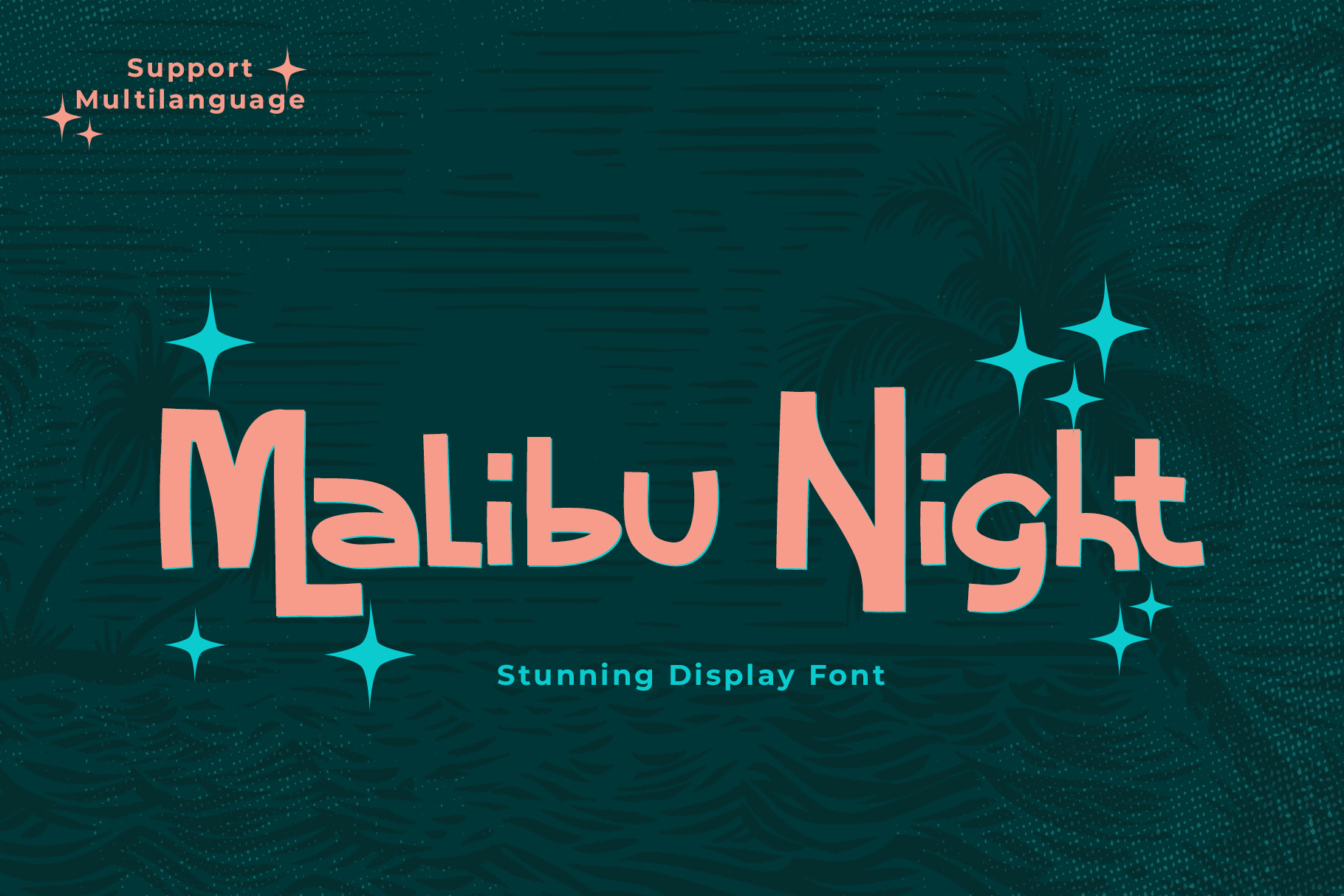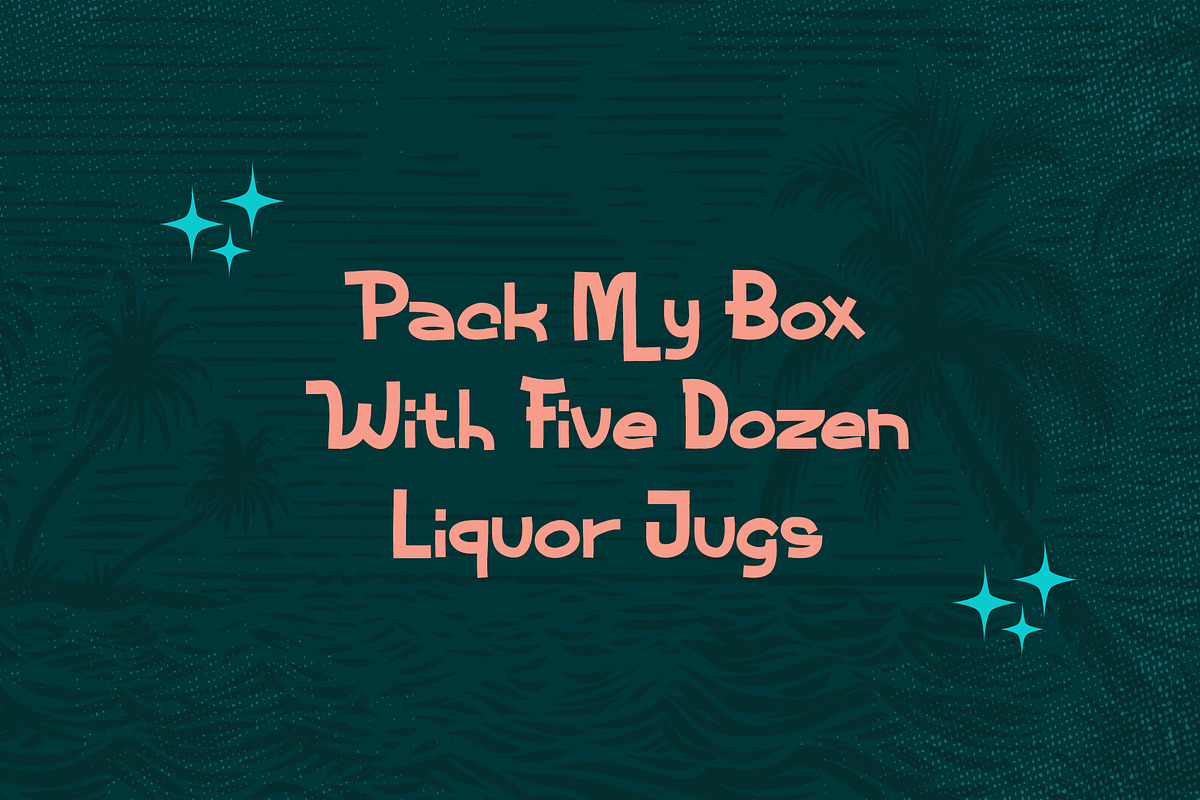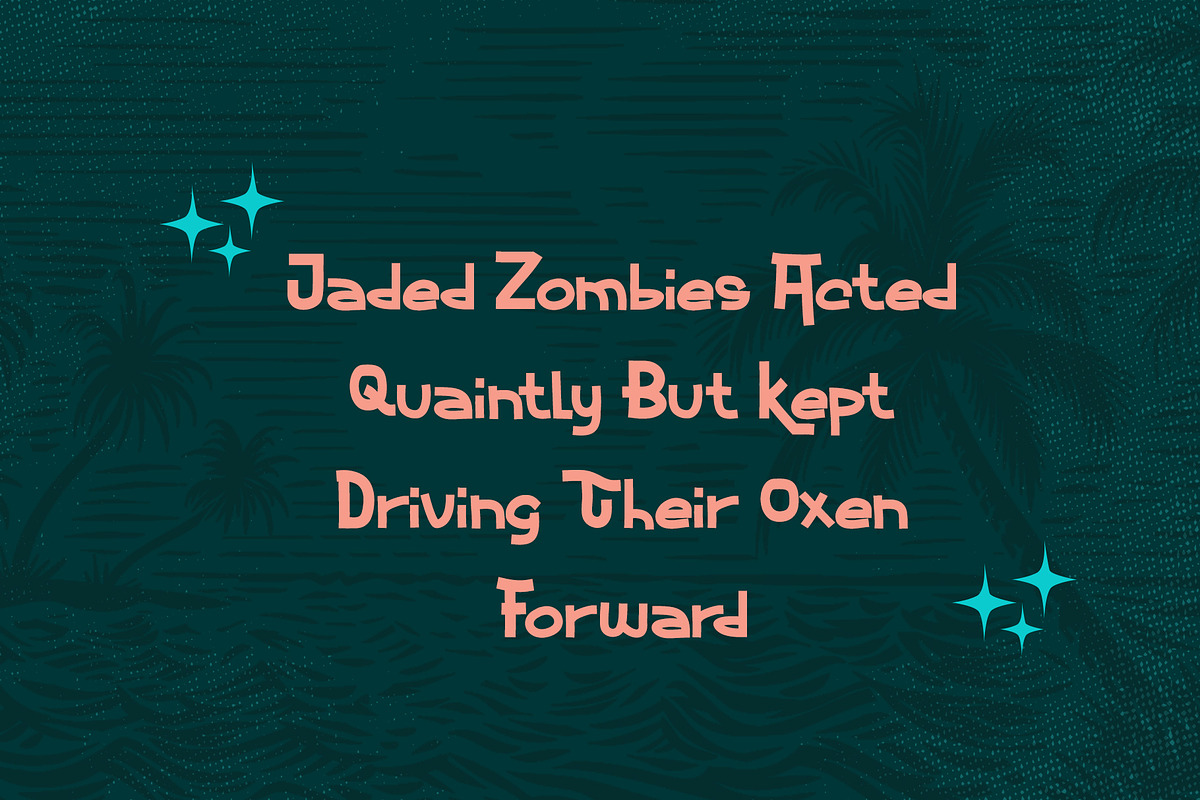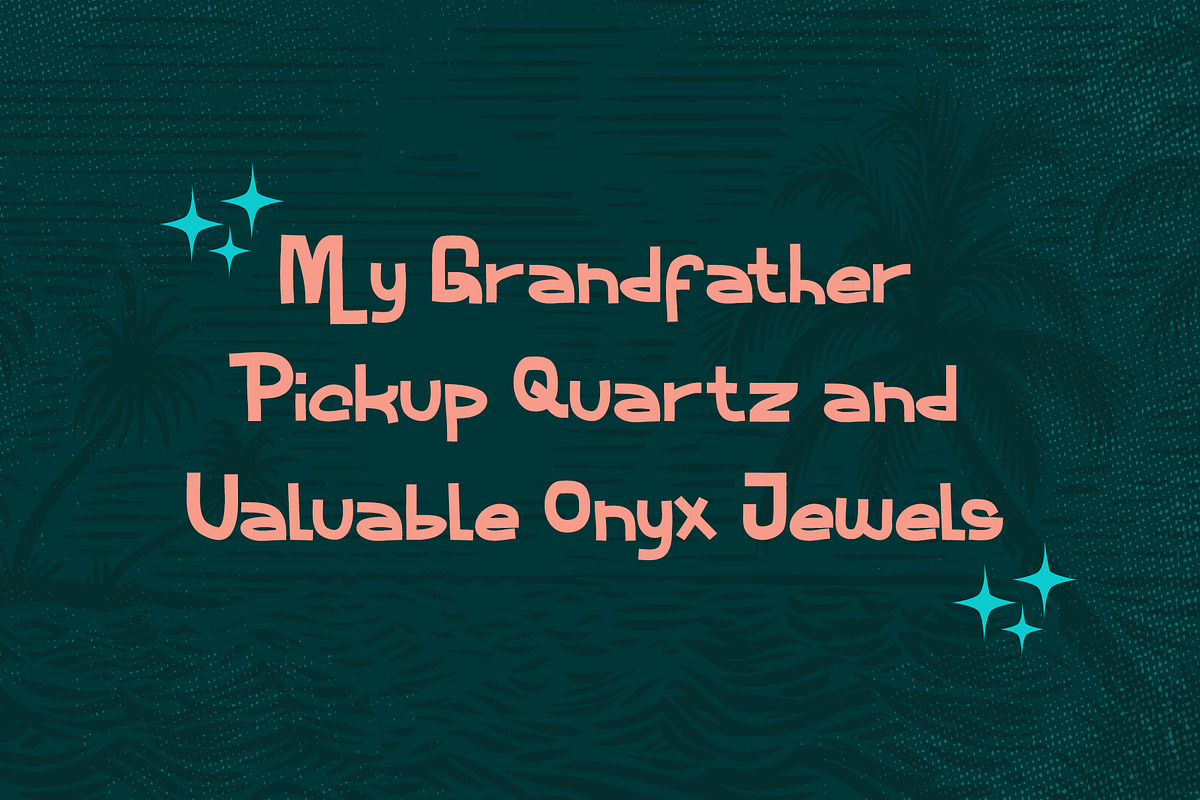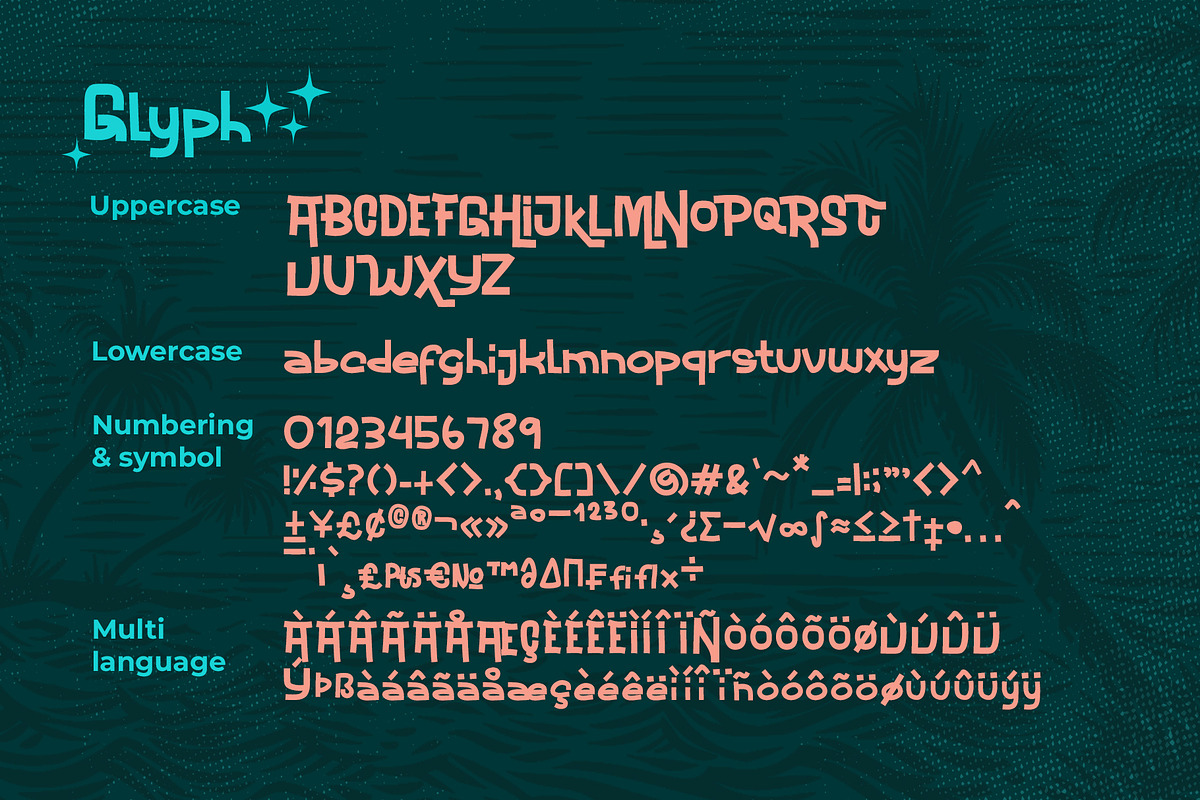
Malibu Night Stunning Display Font
I proudly introduce to you Malibu Night, a stunning Display typeface font, very unique font and BOLD. Can make it easier to convey the message in your design. Use for awesome vintage display, Logo, labeling, clothing, movie screen, poster, movie title, gigs, album covers, logos, and much more.